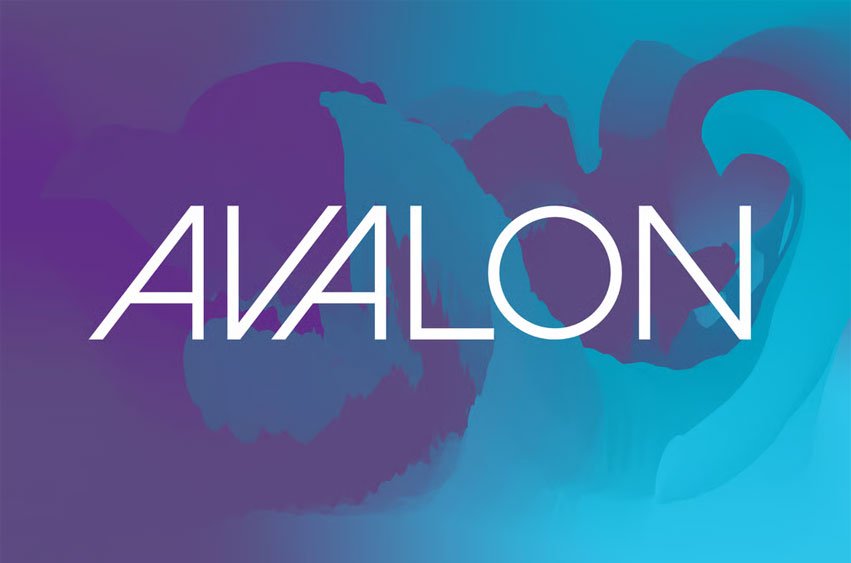
Avalon Font
Avalon Font is a geometric font ideal for logos and posters!
It fits in headlines, logos, posters, flyers, invitations, name cards, branding materials, print media, editorial layouts, and many more.